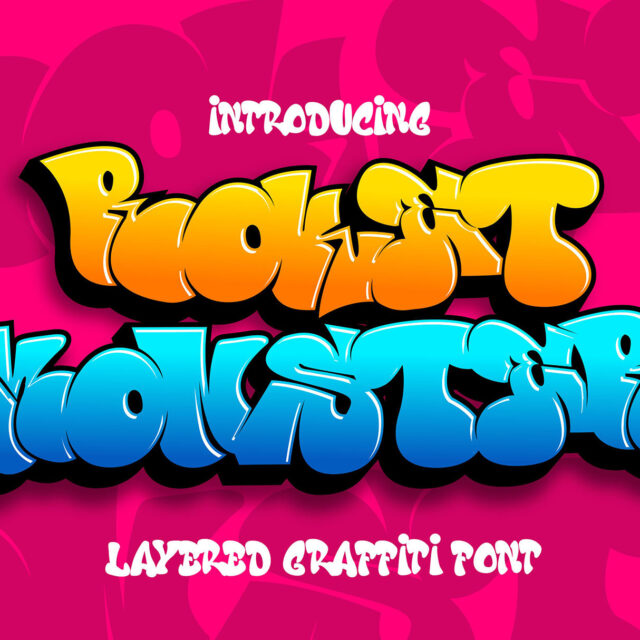
About Roket monster
Roket Monster is an urban graffiti font characterized by sharp edges and a bold look. Ideal for music posters, apparel designs, shirts, and streetwear, this font brings a touch of edginess to your projects. The unique style of “Roket Monster” makes it the perfect choice for street style or urban graffiti themes. Whether you want to create a strong and powerful statement or simply add a touch of attitude to your designs, “Roket Monster” is the font for you.